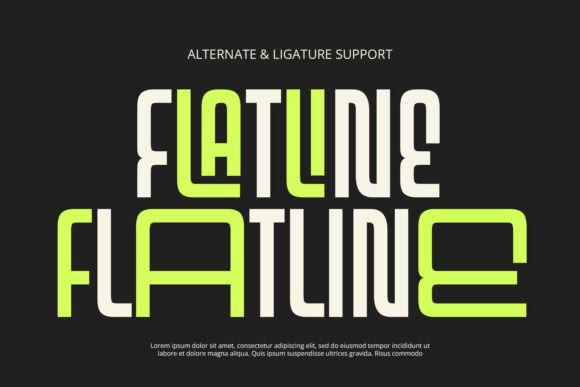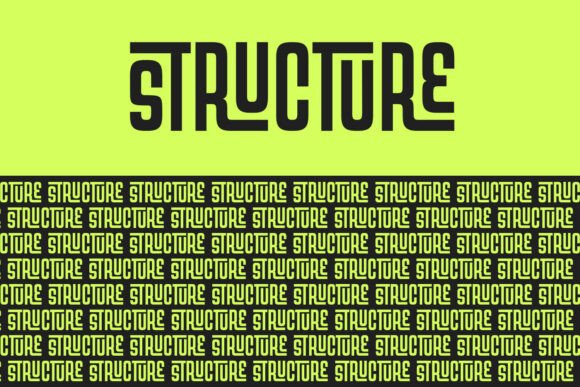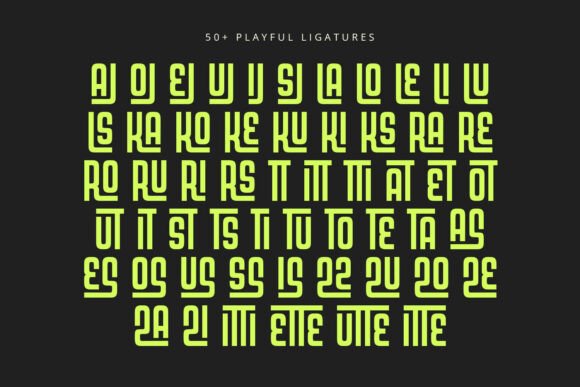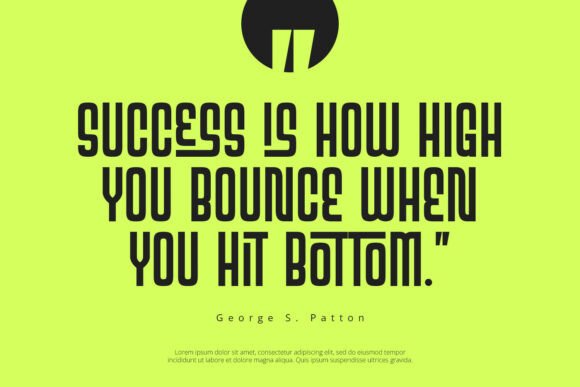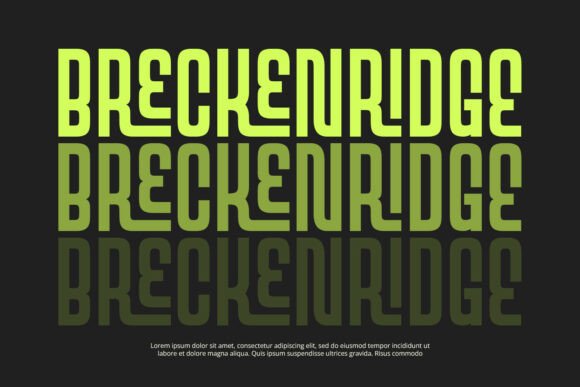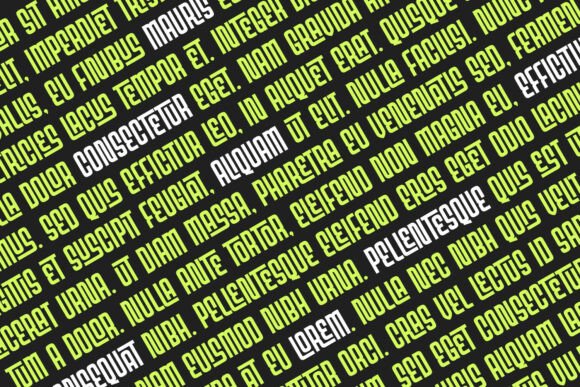
Discover the Modern Charm of Floria Font
A Personal Review of Floria Font
What I Love About Floria Font ✨
- ✅ Modern and sleek design that instantly elevates any project
- ✅ Extensive character set, including uppercase and lowercase letters, numerals, punctuations, and accents
- ✅ OpenType features like ligatures and alternative styles, giving you plenty of creative freedom
- ⚠️ Some users might find the font a bit too bold for certain design applications
- ⚠️ Limited availability of variable font weights, which might restrict its use in certain projects
The Inspiration Behind Floria Font
Floria Font was designed with the intention of creating a modern and versatile font that could be used across various design applications. The designer, Alpaprana, aimed to craft a font that would be both stylish and functional, making it perfect for branding, logo design, and more.
| Is Floria Font suitable for body text? | While Floria Font is primarily designed for display purposes, it can be used for body text in certain contexts. However, its bold nature might make it more suitable for headings and titles. |
Overall, Floria Font is a versatile and stylish addition to any design project. With its modern feel and extensive character set, it’s perfect for a wide range of applications, from branding and logo design to packaging and editorial design.